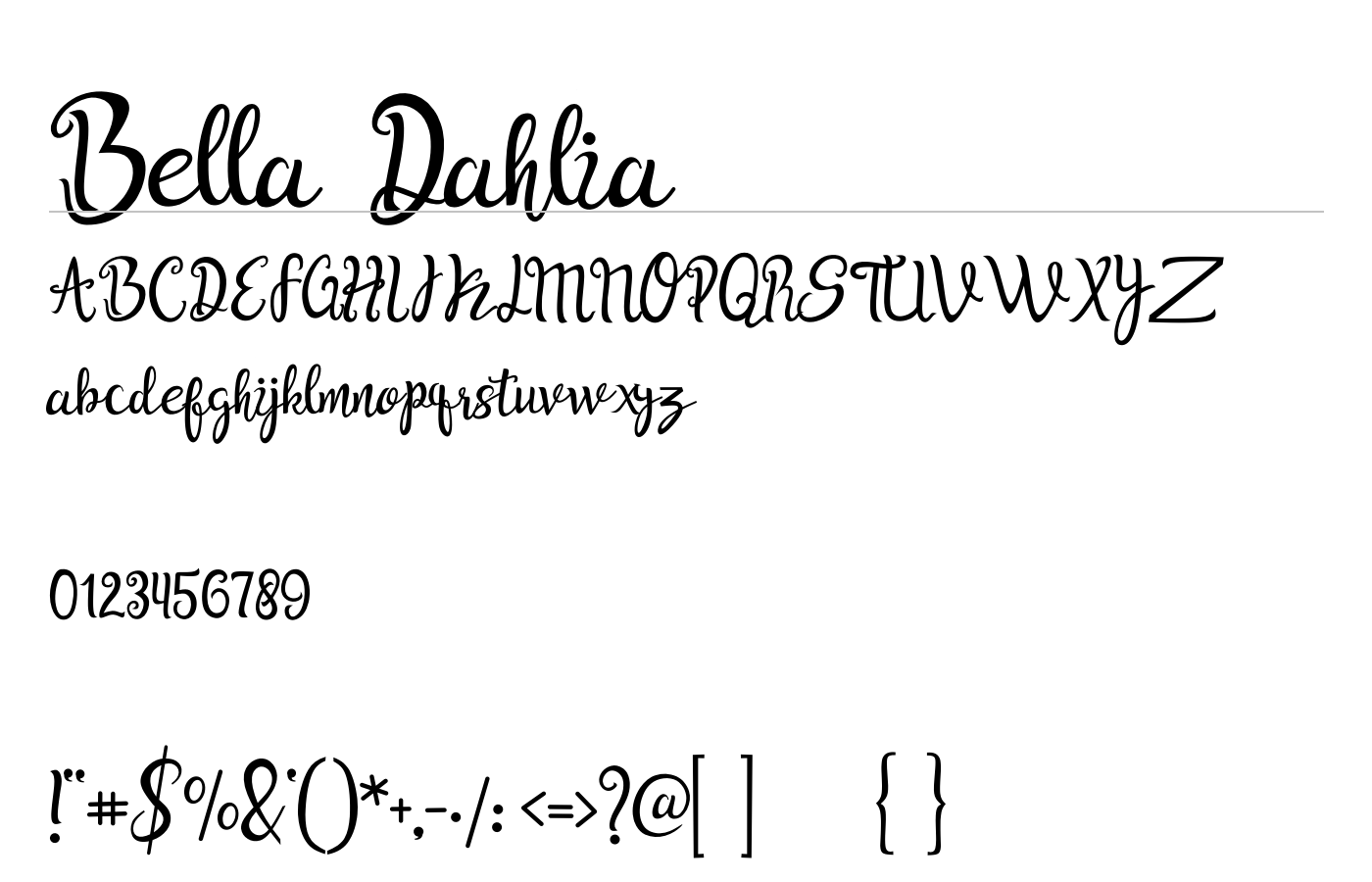
Bella Dahlia is a charming script font with a handwritten, playful feel, featuring delicate, flowing lines and elegant curves that give it a light and airy appearance. Its moderate contrast and whimsical letterforms make it ideal for creative branding, invitations, and decorative uses where a friendly, approachable style is desired. This font works well in headlines and logos, bringing a personal, artistic touch to fashion, beauty, and lifestyle designs.
| Font family | Bella Dahlia Font |
| Designer | abdul ghofur |
| Trademark | GFRcreative |